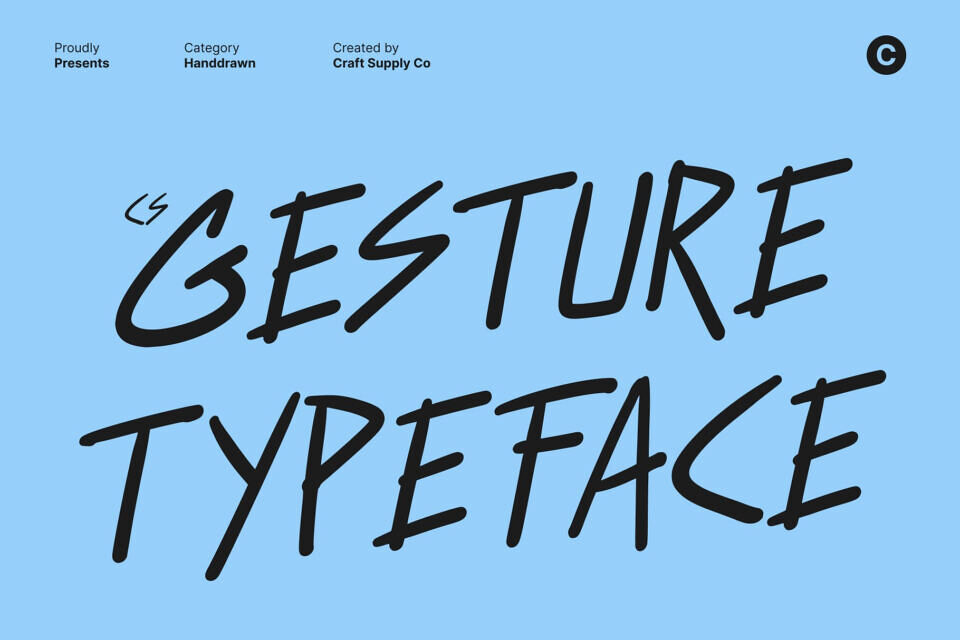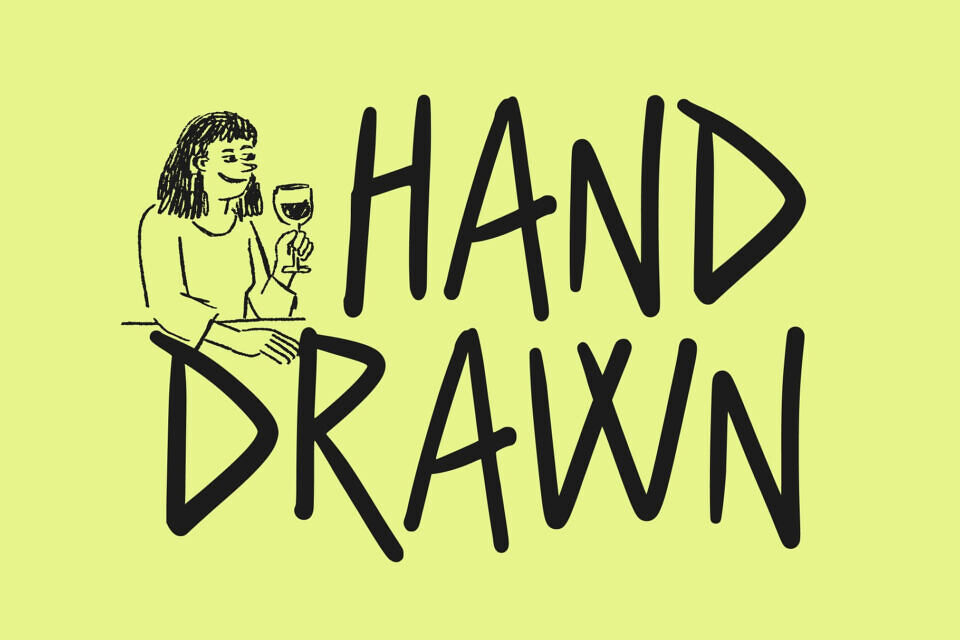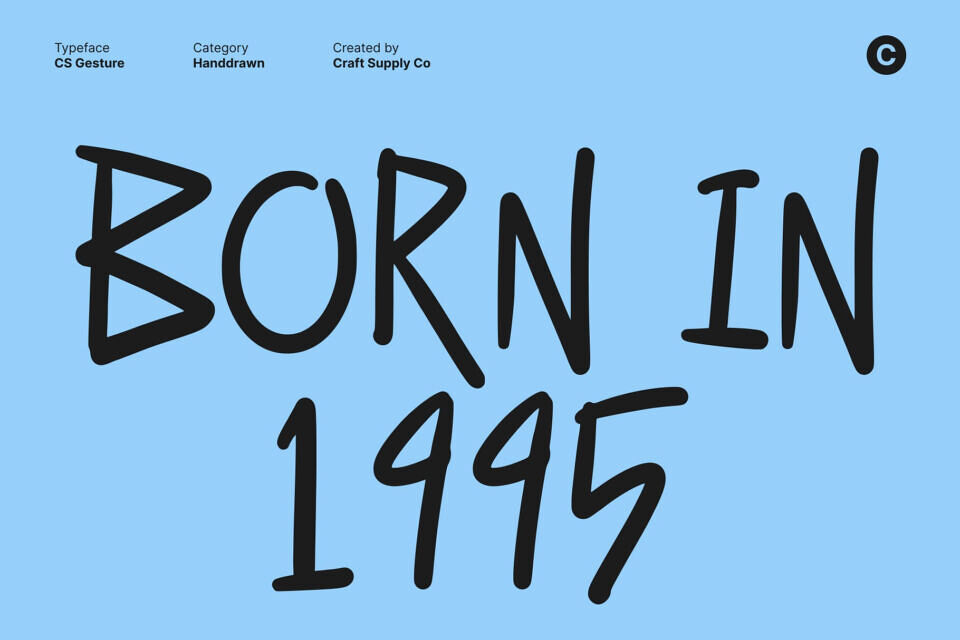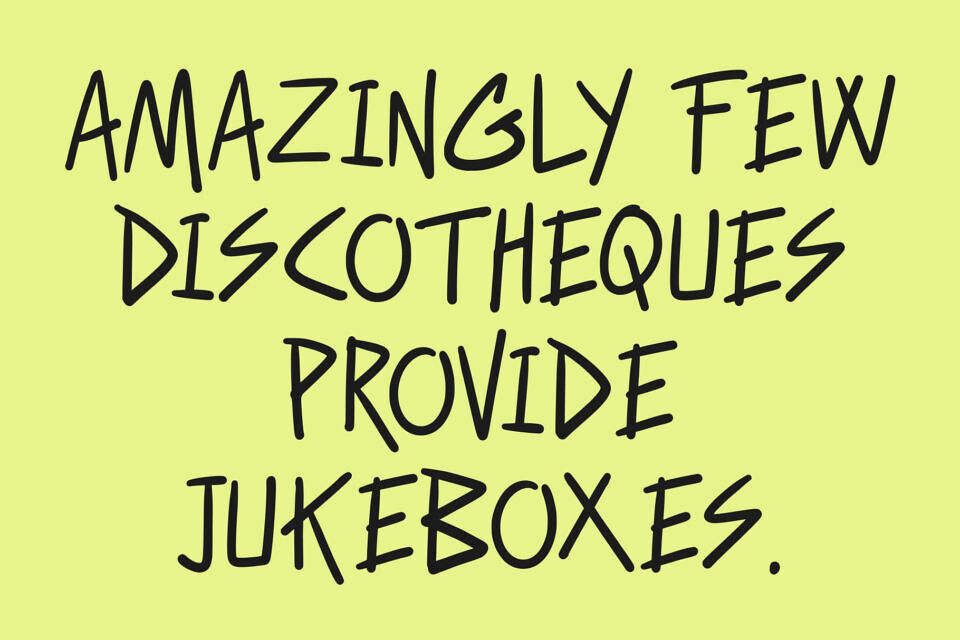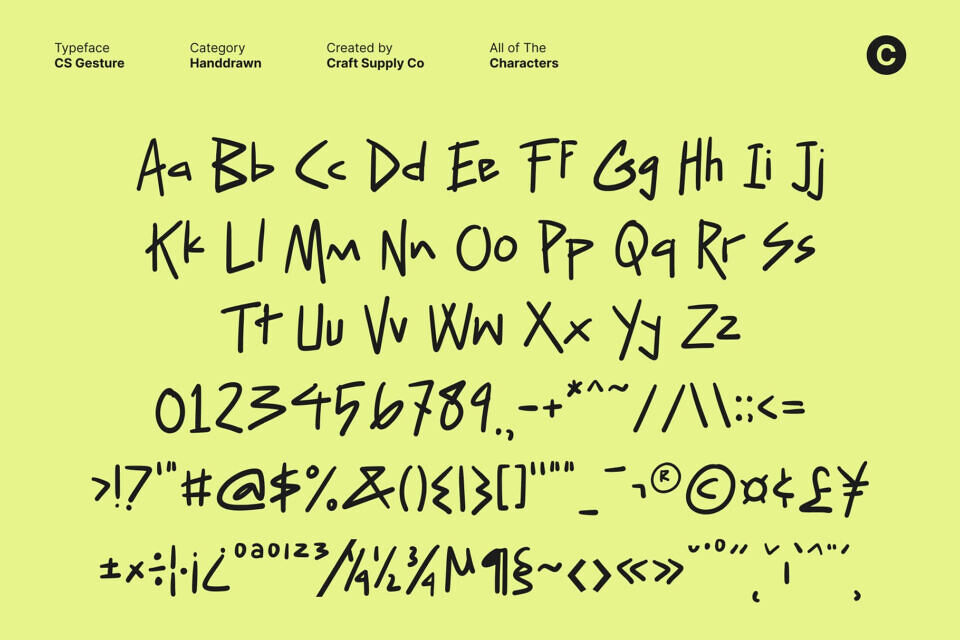
Gesture is a handwritten display font designed to emulate the organic flow of natural pen strokes. Its soft, fluid shapes give every word a lively, personal touch, capturing the warmth and spontaneity of human handwriting. Ideal for projects that need an approachable and expressive tone, it brings authenticity to any design.
The font’s letterforms combine clarity with aesthetic charm, ensuring legibility without losing personality. Each character maintains a consistent rhythm, making it perfect for continuous text, short quotes, or display purposes where a human touch is desired. This font balances readability with artistic flair.